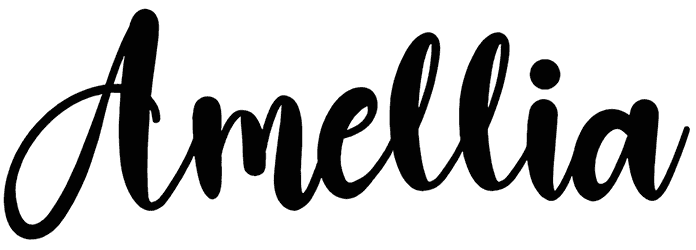
Amellia Font
Are you looking for a clear script font for your subsequent scheme? So we have got you covered by submitting Amellia. This love font can meet a comprehensive range of your design needs and allow you to implement creative ideas.
You can use this handwritten font on the cover of magazines, greeting cards, or cover images of YouTube videos by evoking a natural and human feeling, and then easily win the trust of the audience.